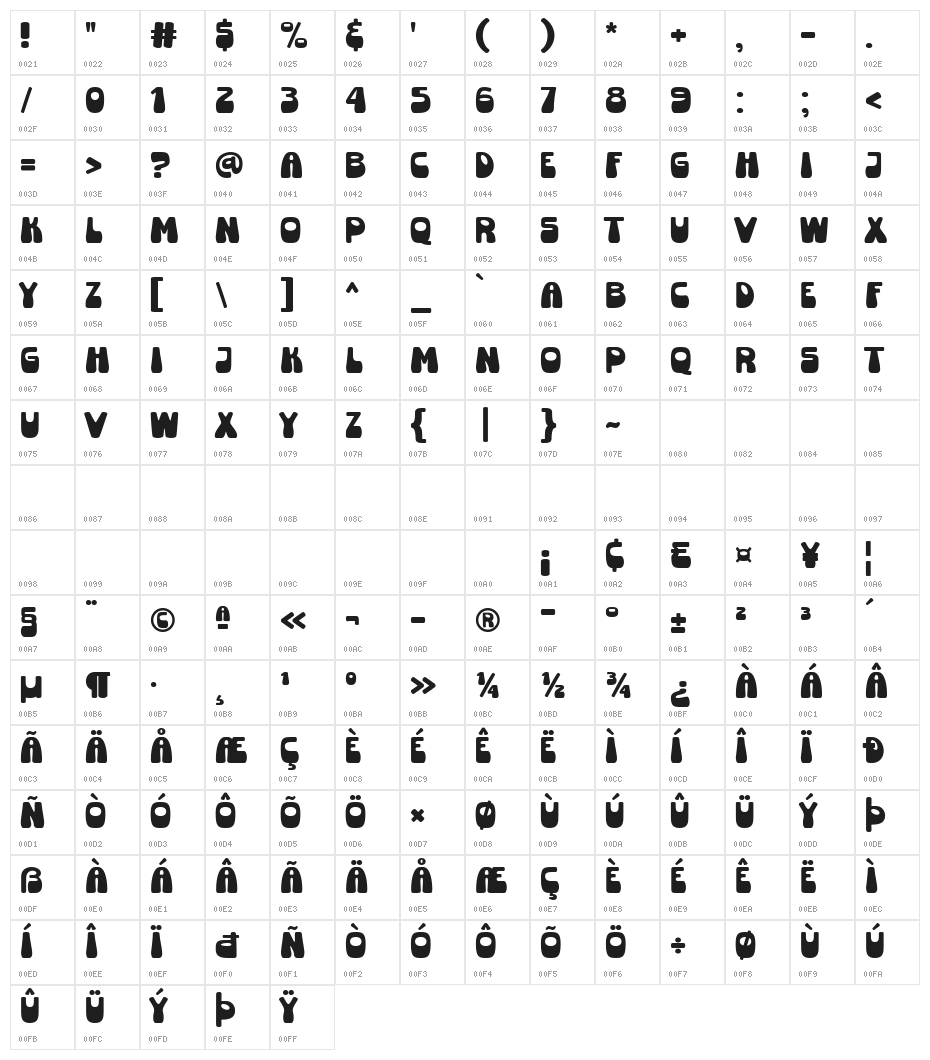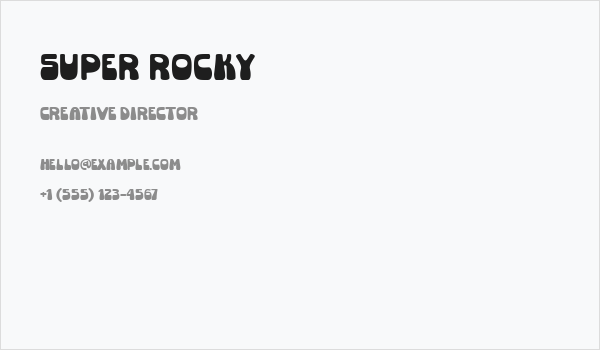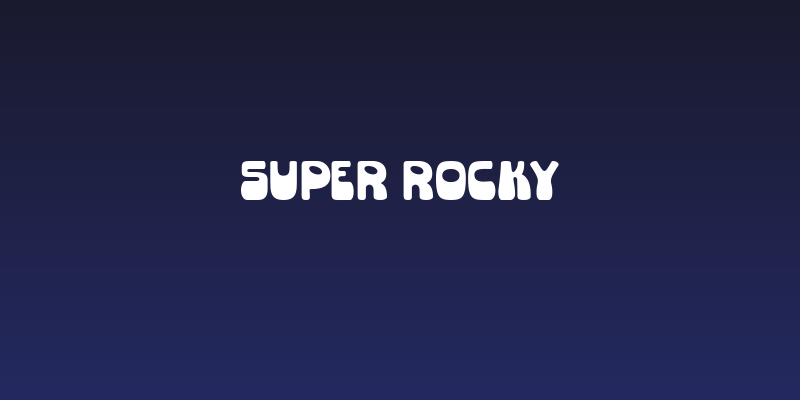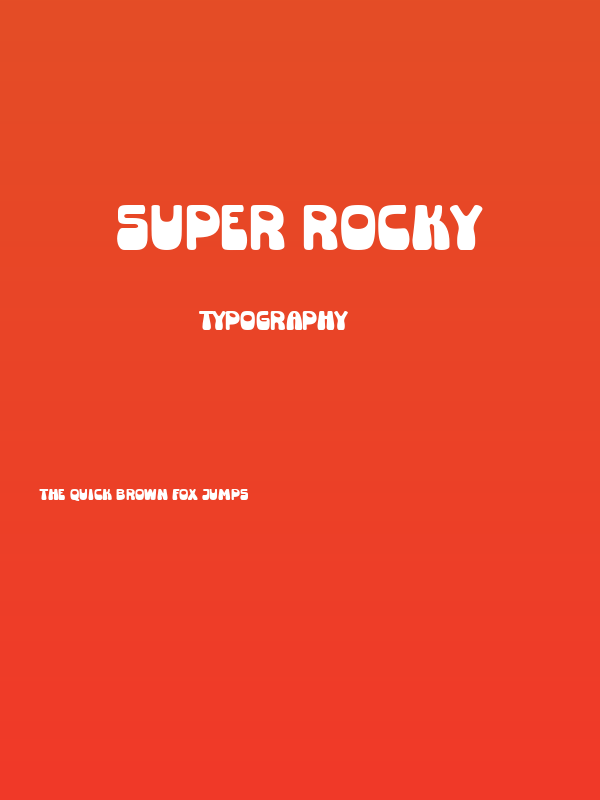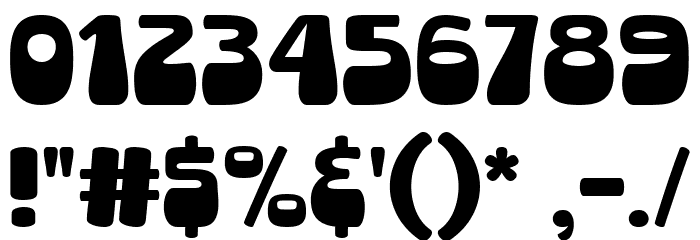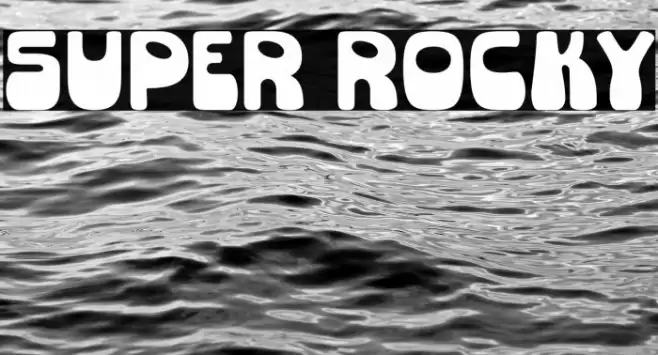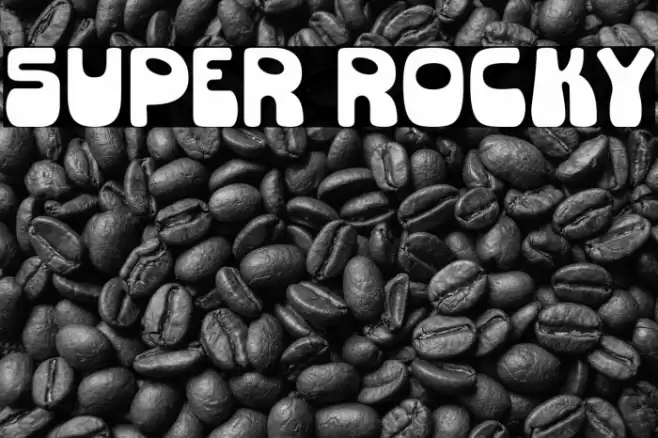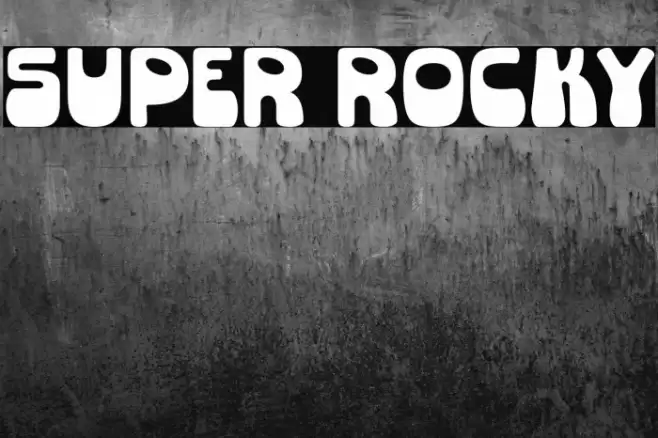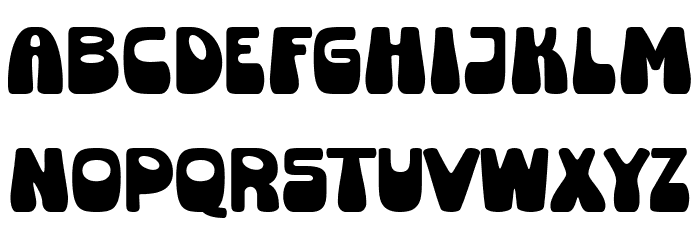
Super Rocky Font
Super Rocky Description
This bold and playful font features thick, rounded characters with a distinctly chunky appearance. The letters are uniformly wide, giving them a strong presence on the page. The rounded edges and smooth curves create a friendly and approachable feel, making it ideal for designs that require a touch of whimsy. The numbers and special characters maintain the same bold style, ensuring consistency across all text elements. This font is particularly well-suited for eye-catching headlines and titles, where its unique style can be fully appreciated.
| Overall Style | Playful, Modern |
| Proposed Projects | Ideal for children's books, playful branding, posters, and eye-catching headlines. |